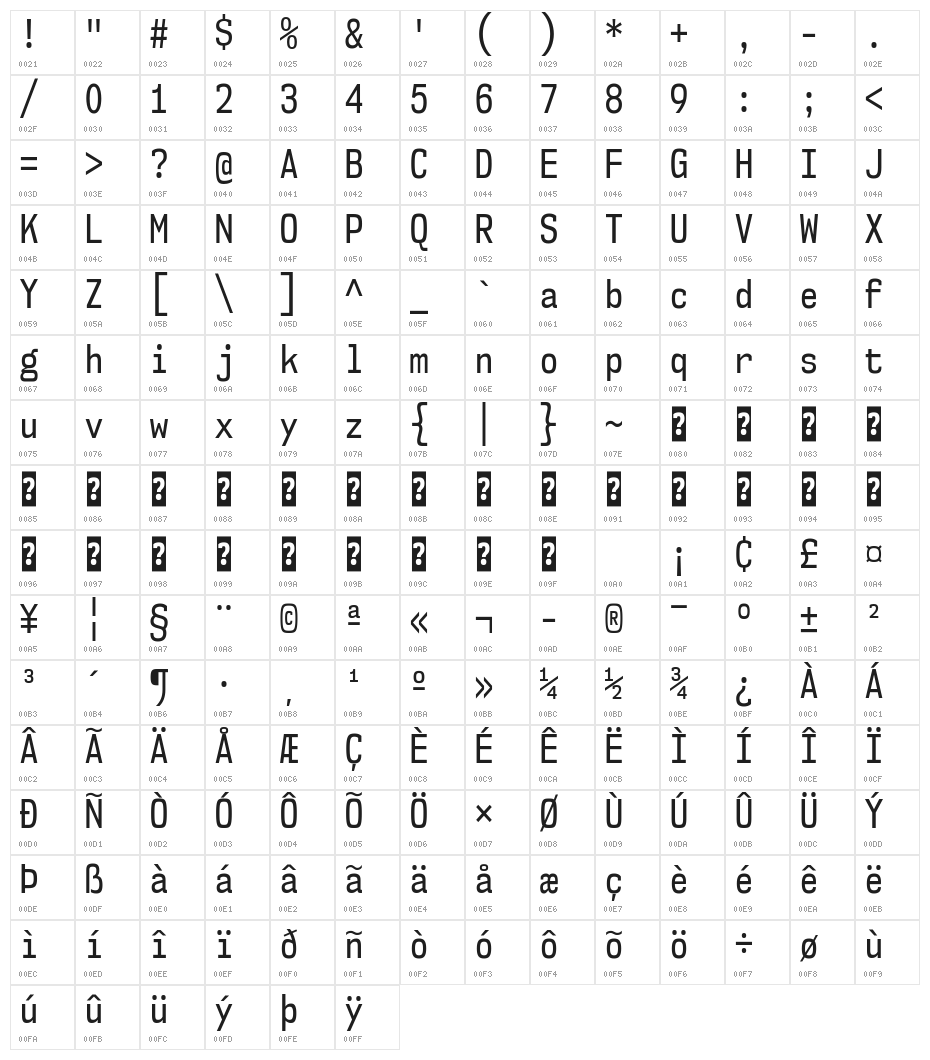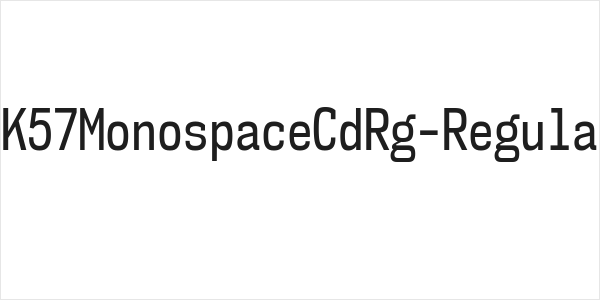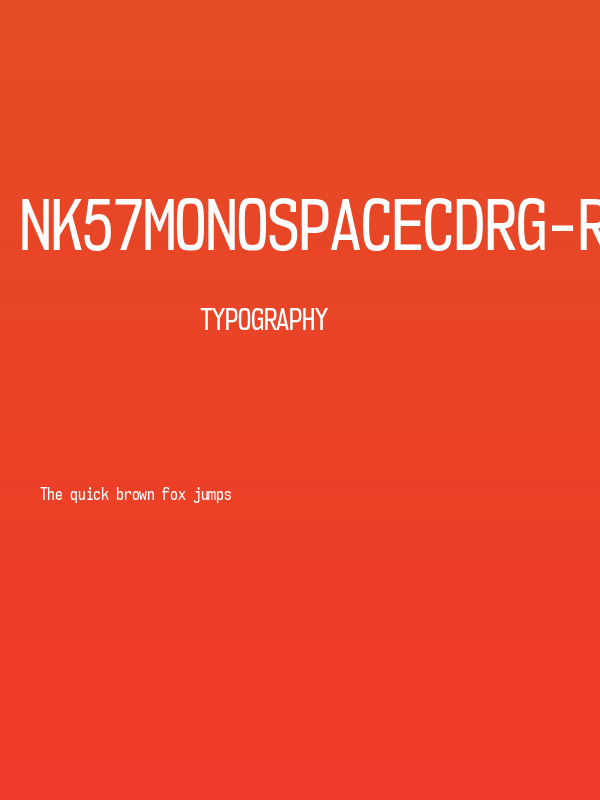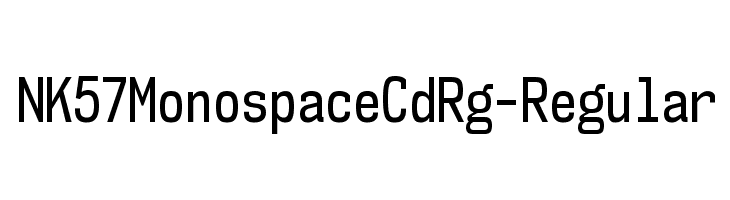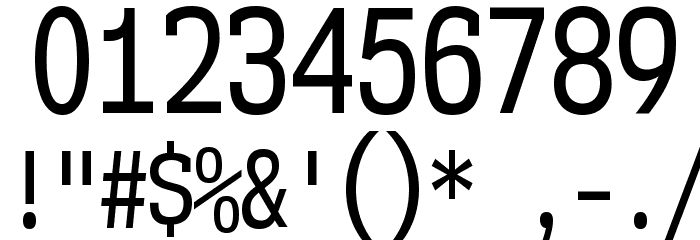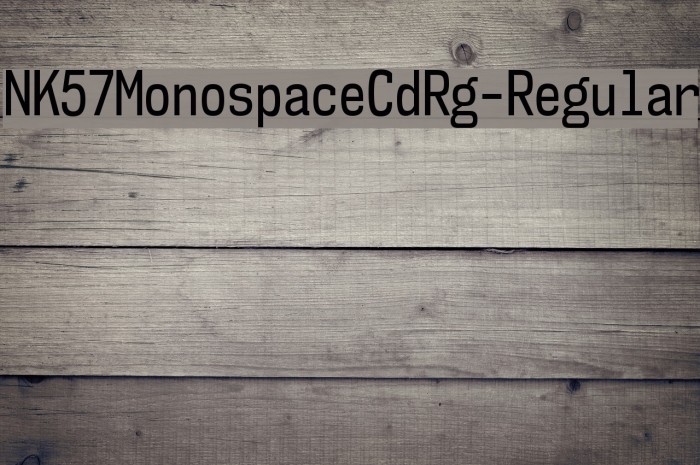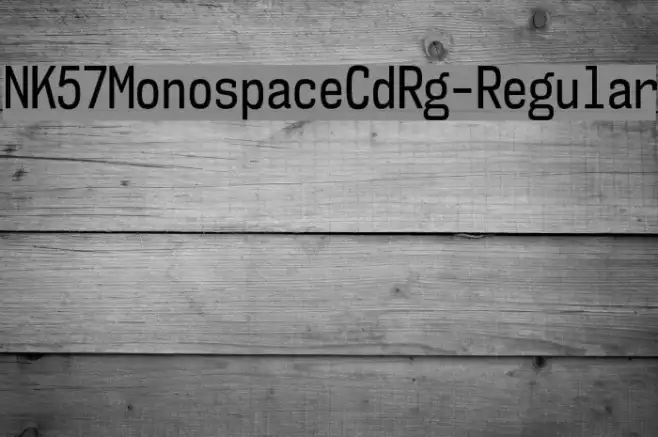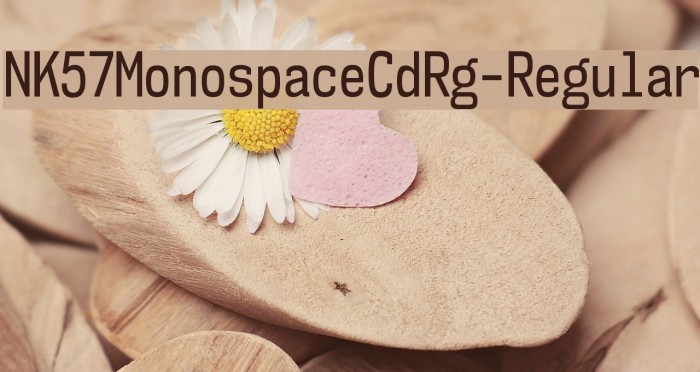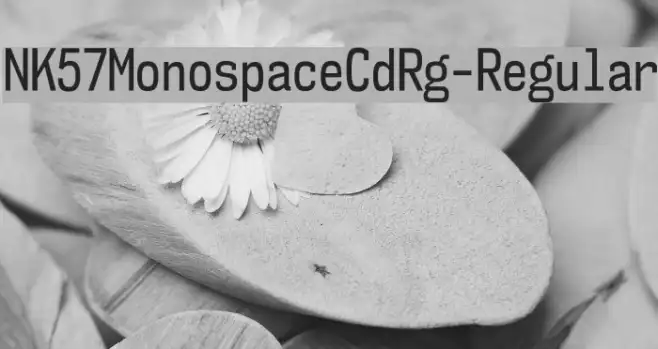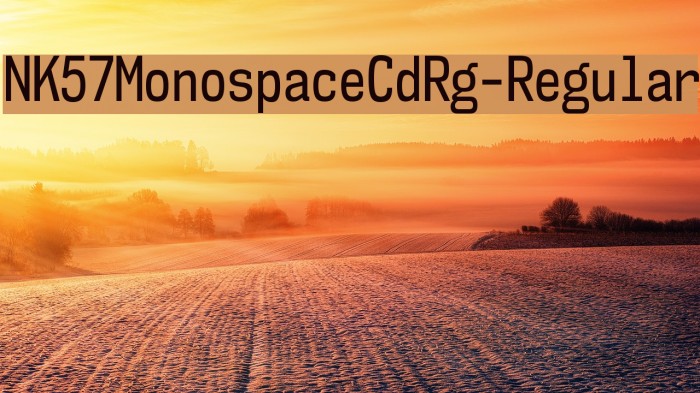
NK57MonospaceCdRg-Regular Font
NK57MonospaceCdRg-Regular Description
This font features a clean, modern design with a monospaced structure. Each character is uniformly spaced, providing a consistent and orderly appearance. The letters are tall and narrow, contributing to a condensed look that maximizes space efficiency. The strokes are even and uniform, with low contrast between thick and thin lines, which enhances readability. The overall style is straightforward and functional, making it suitable for technical and digital applications. The font includes a full set of uppercase and lowercase letters, numerals, and a variety of special characters, ensuring versatility in use.
| Use Case | Coding, Technical documents, Digital interfaces |
| Proposed Projects | Ideal for coding, technical documents, digital interfaces, and any project requiring a clean, organized look. |